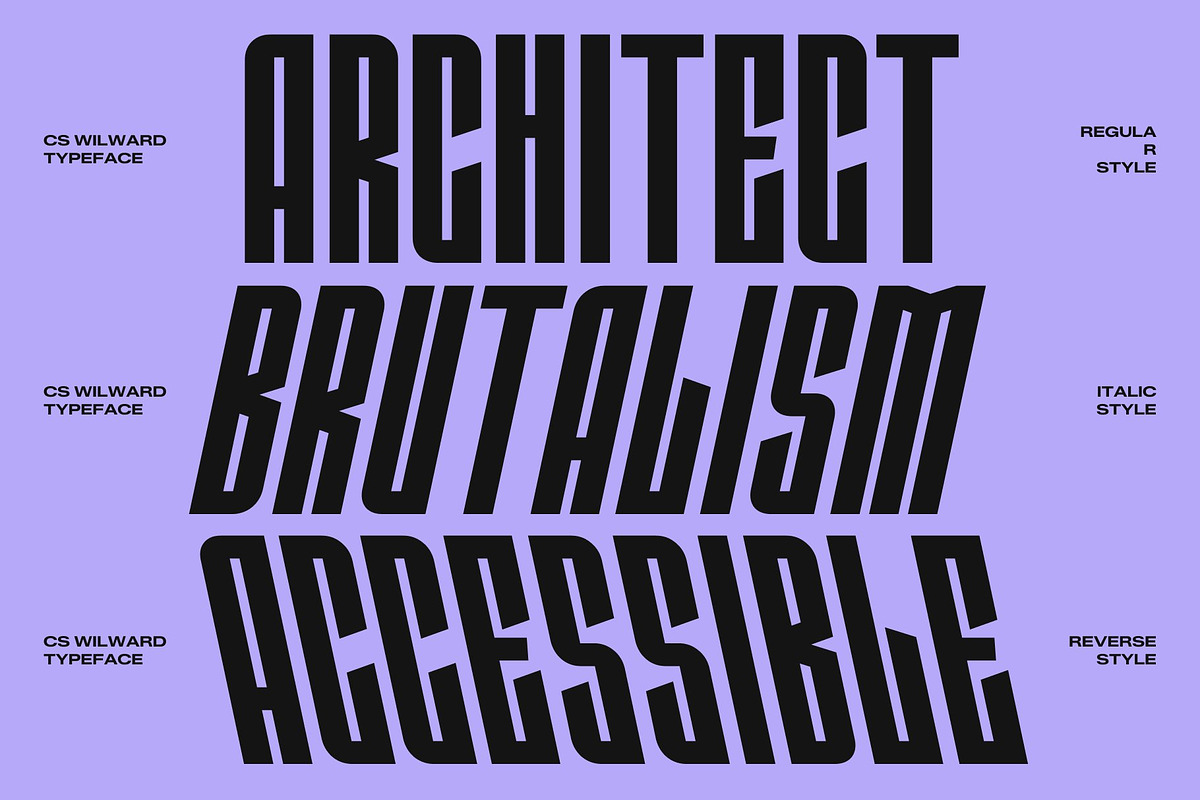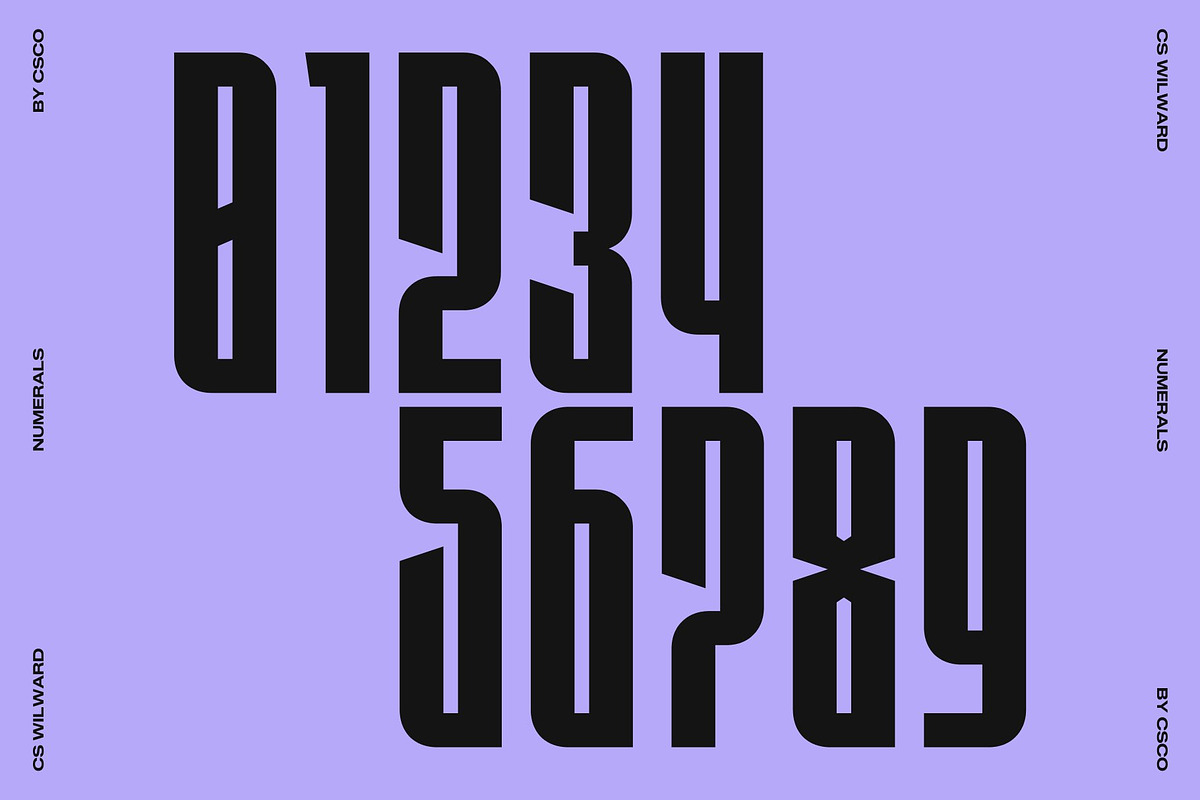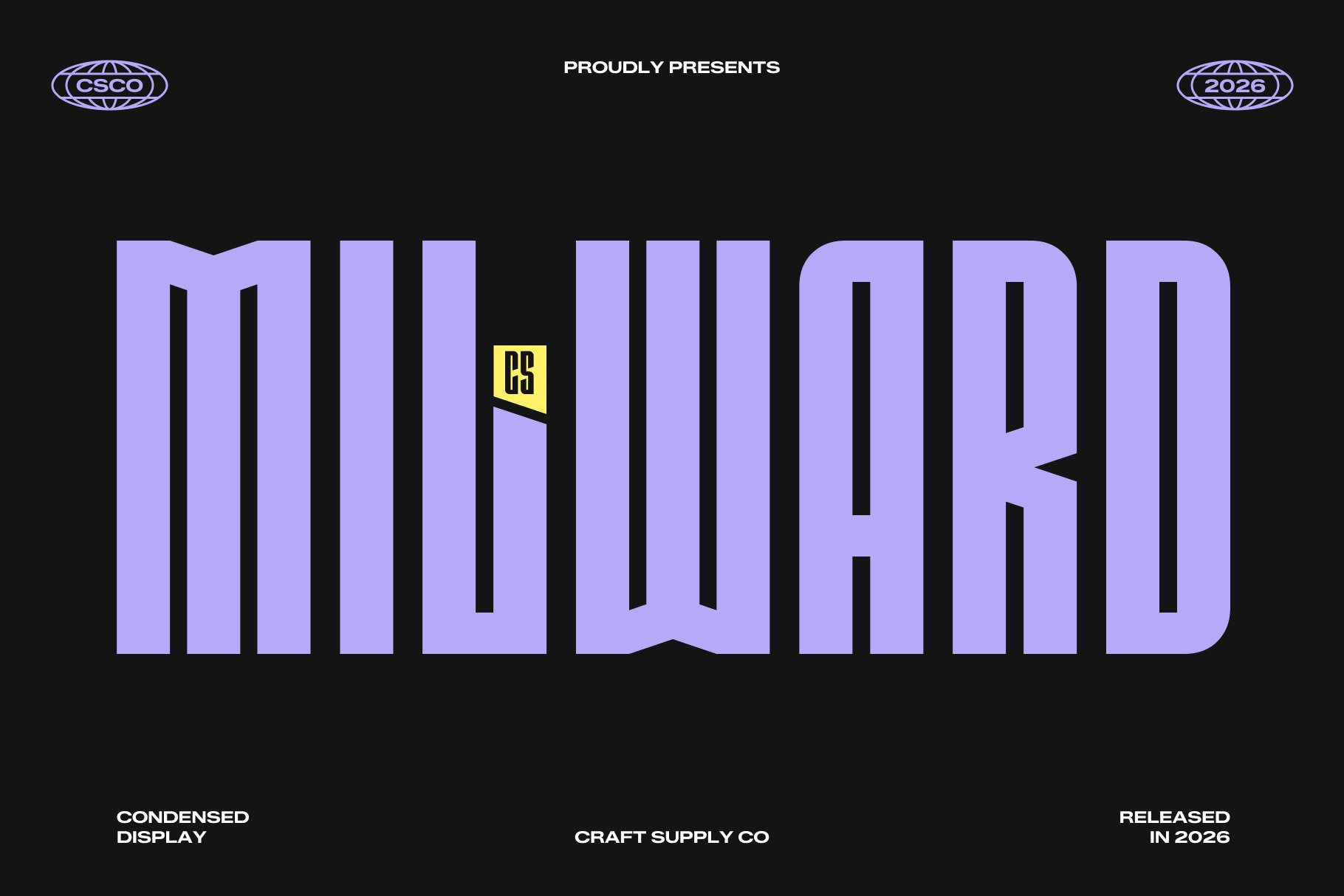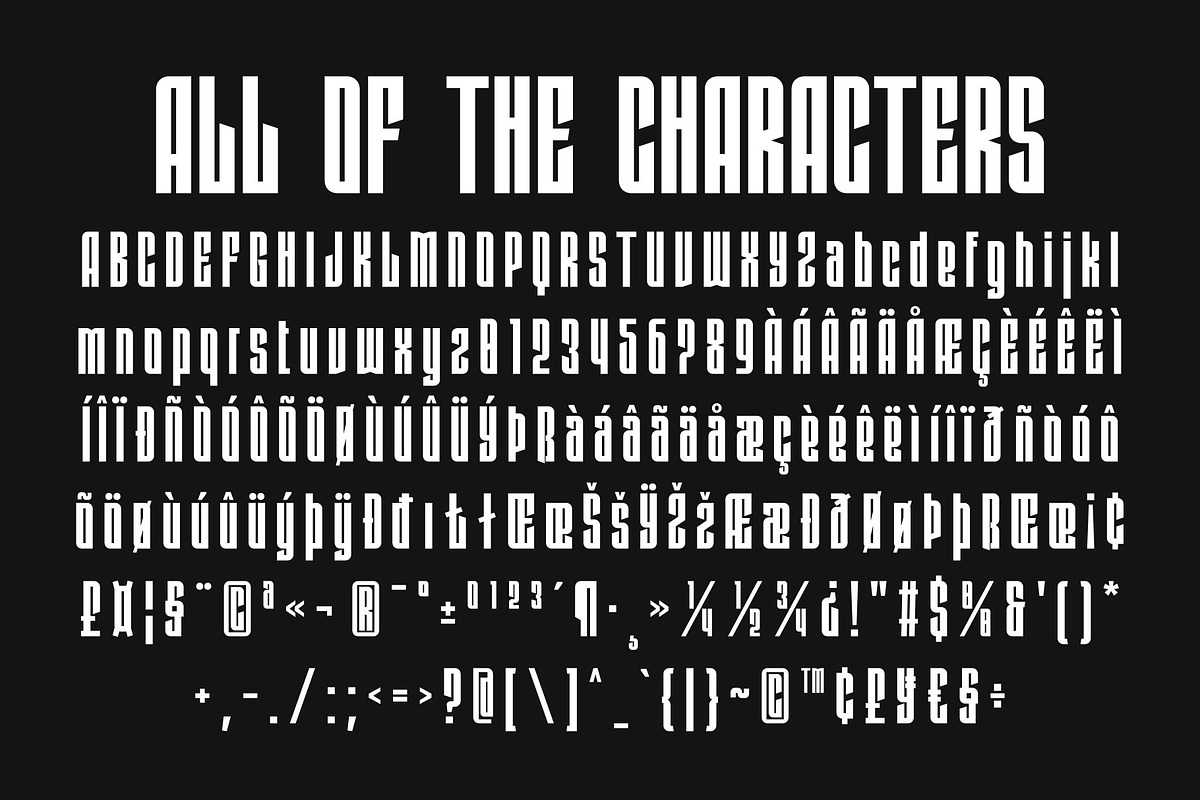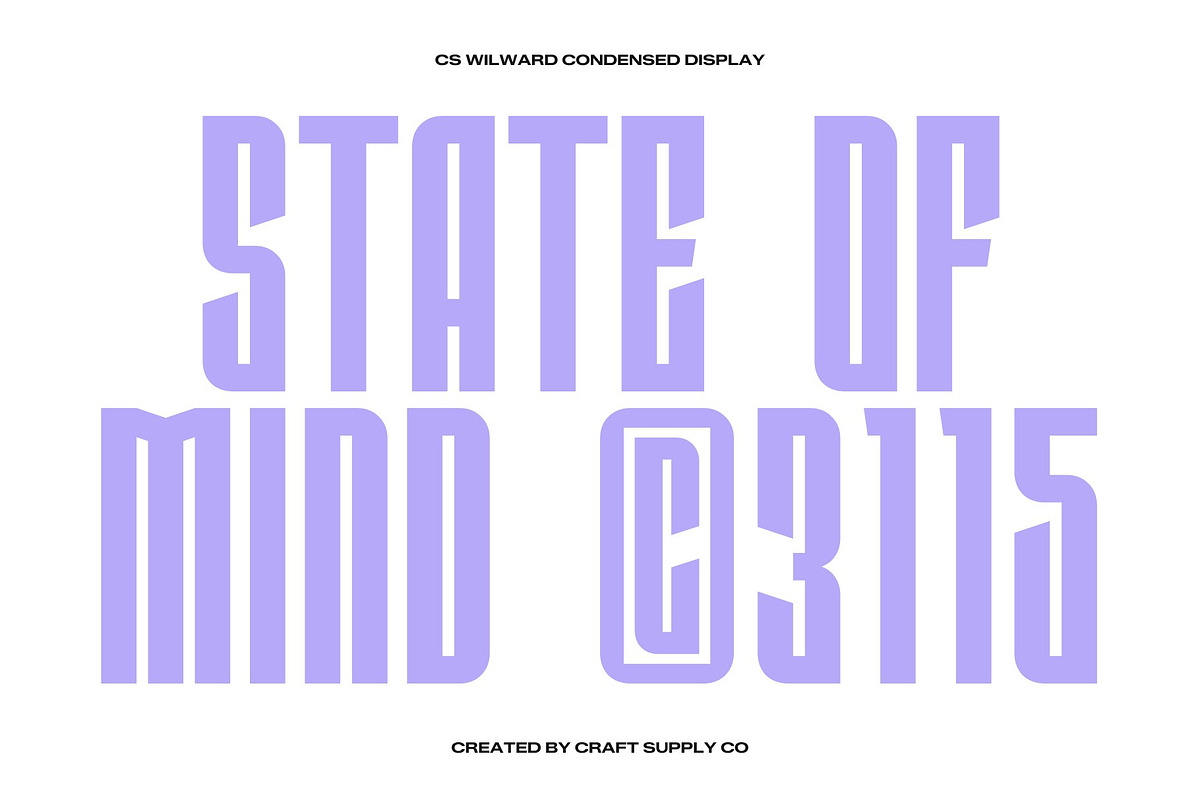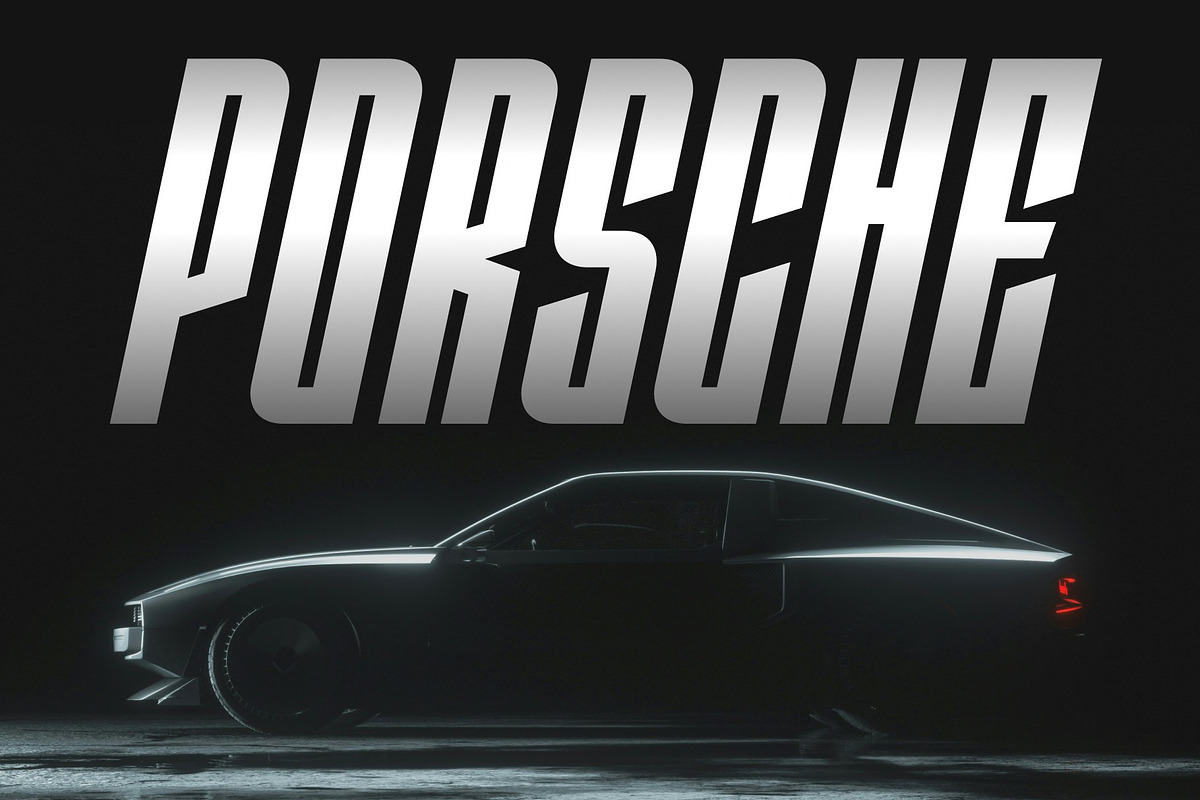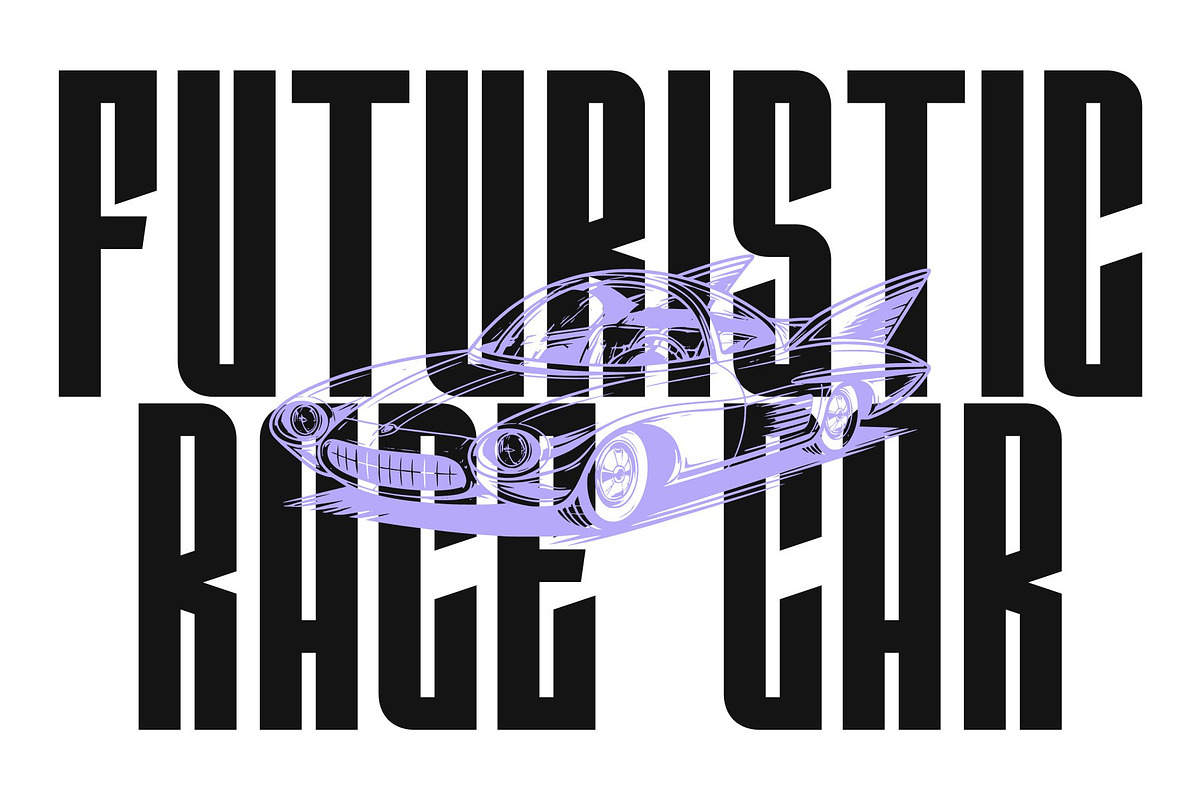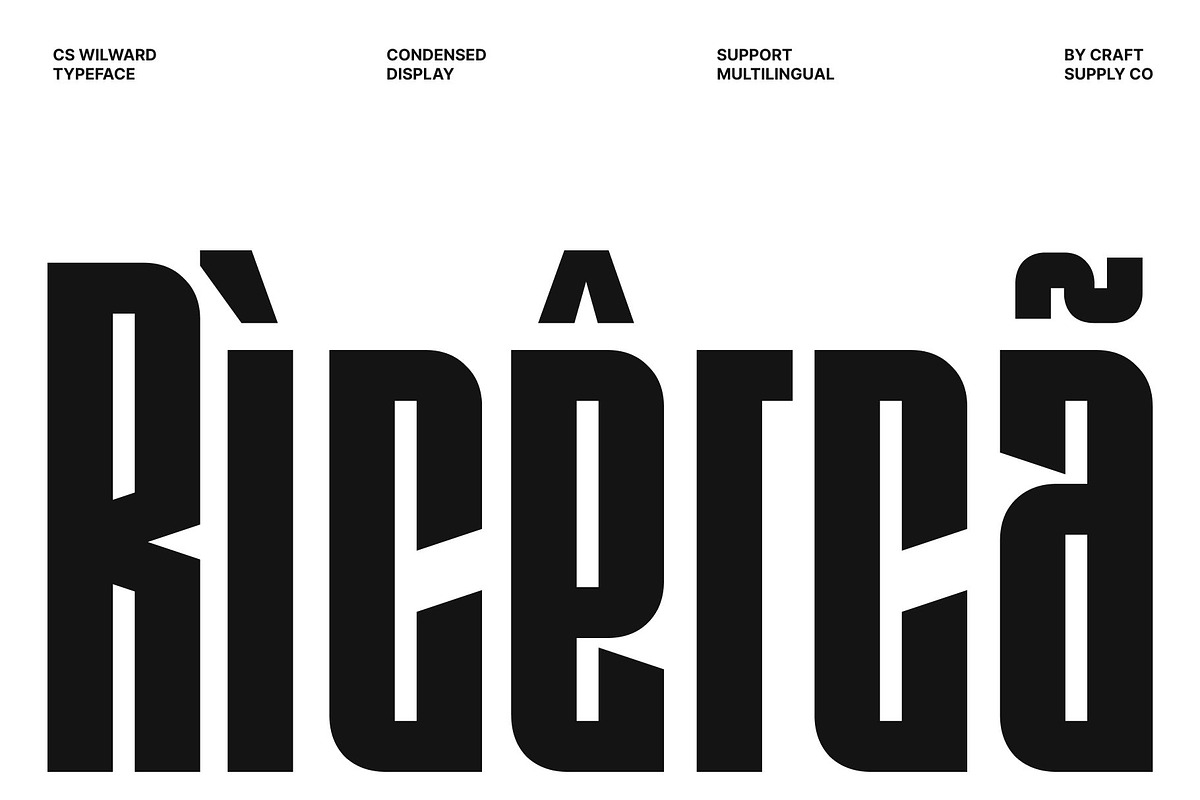
CS Milward – Condensed Font
CS Milward – Modern Condensed Display Font with Industrial Clarity
Modern Condensed Display Font with Strong Visual Authority This is a modern condensed display font crafted to deliver bold visual impact in tight spaces. Designed with a strong industrial spirit and contemporary precision, this typeface transforms headlines into confident and commanding statements. It is built for designers who need typography that feels powerful, efficient, and unmistakably modern.
Optimized for Tight and Efficient Layouts The condensed proportions allow more content to fit seamlessly into narrow compositions without sacrificing readability. Each letterform is carefully shaped to appear tall, compact, and balanced, ensuring your message remains clear and organized even in dense layouts. This efficiency makes this font ideal for posters, banners, and attention-grabbing titles.
Industrial Character with Clean Structure This font blends sturdy strokes and geometric forms to create a strong industrial aesthetic. The clean construction keeps the font versatile and contemporary, while its bold shapes deliver confidence and authority. This balance ensures the typeface feels professional while still visually striking.
Perfect for Headlines, Posters, and Branding From bold advertising and editorial headlines to modern branding and digital campaigns, this font adapts effortlessly to a wide range of creative projects. Its combination of readability, compact efficiency, and industrial character ensures your typography stands out with clarity, strength, and modern style.
CS Milward Regular
CS Milward Italic
CS Milward Reverse Italic